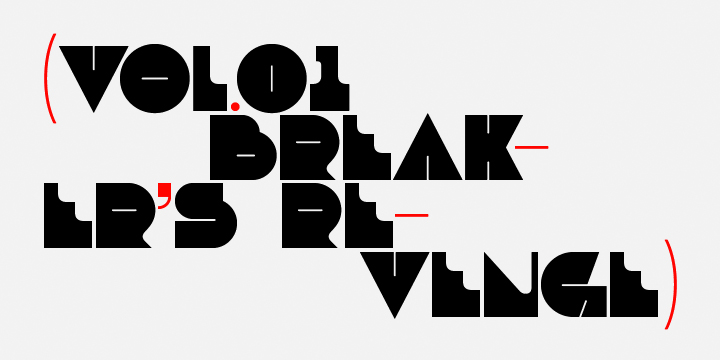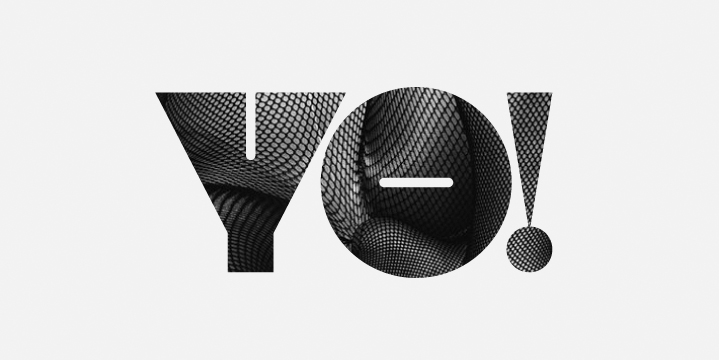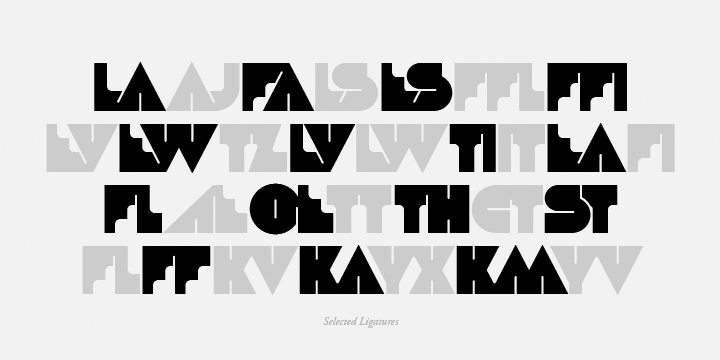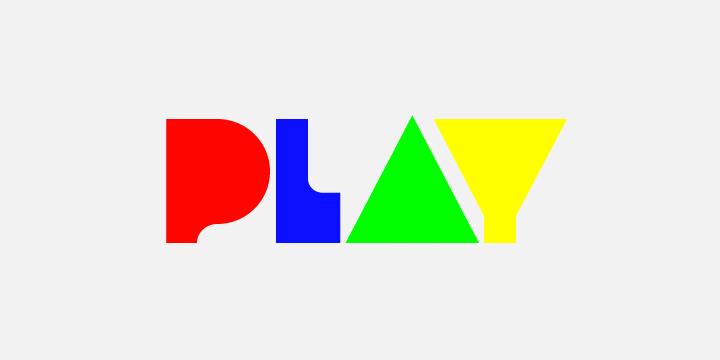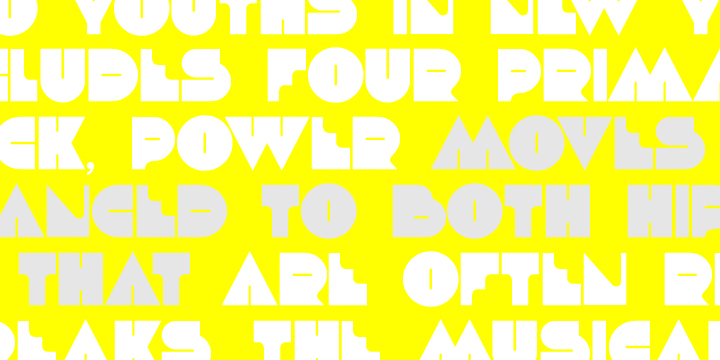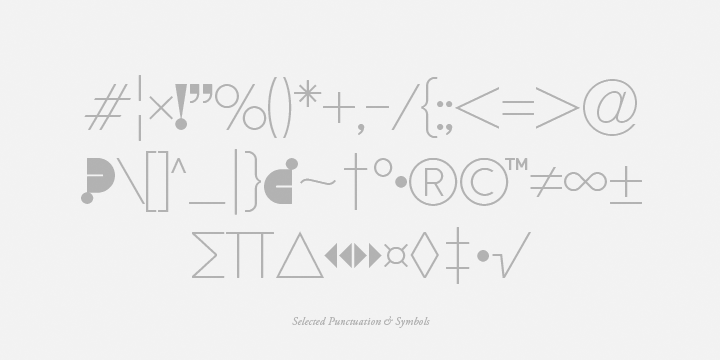
Debacle
Debacle is a super bold contrastive display face built upon pure geometric shapes. Sharp, angular lines are countered against obtuse rounded forms creating a striking visual discord. Select inner corners are rounded, giving characters dual attributes, while linear round-end counters simultaneously contrast and compliment the square-ended punctuation and symbols.
Stylistically, Debacle's prominent letterforms effortlessly create type-as-image text settings. It's style relates to the lush display typefaces from the seventies, yet is highly contemporary in it's refinement and finish.
Features include:
- Basic Ligature set including 'f' ligatures (ae, oe, fi, fl, ffi, ffl, ff, fh, fj, ft, tt, th, ct, st, la, aj, fa, ls, es, ev, ew, tz, lv, lw, ti, it, ea, kv, ka, ky, yx, xy, yy, km, yw, wy, yv, vy, kw)
- Alternate characters (O, Q, _, $,